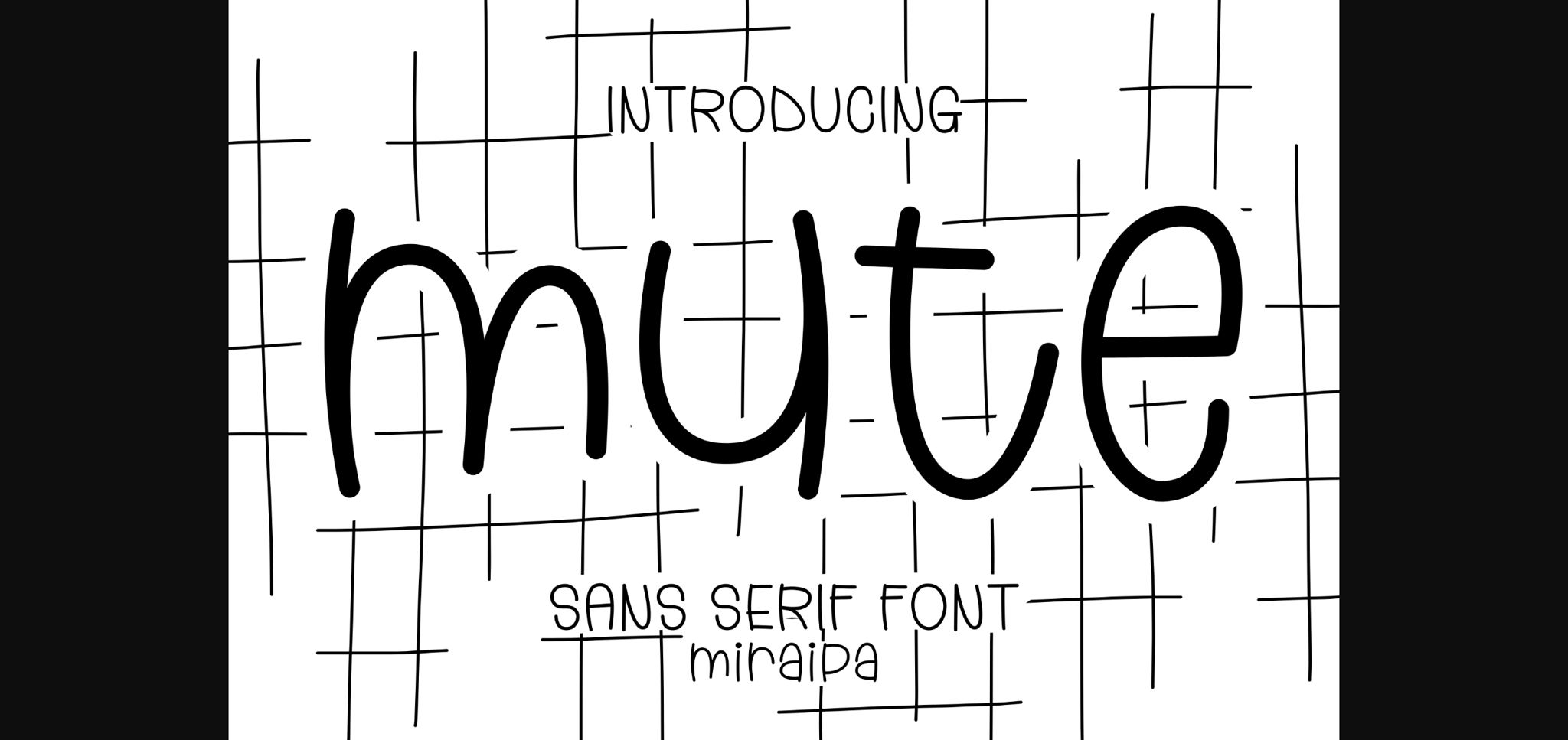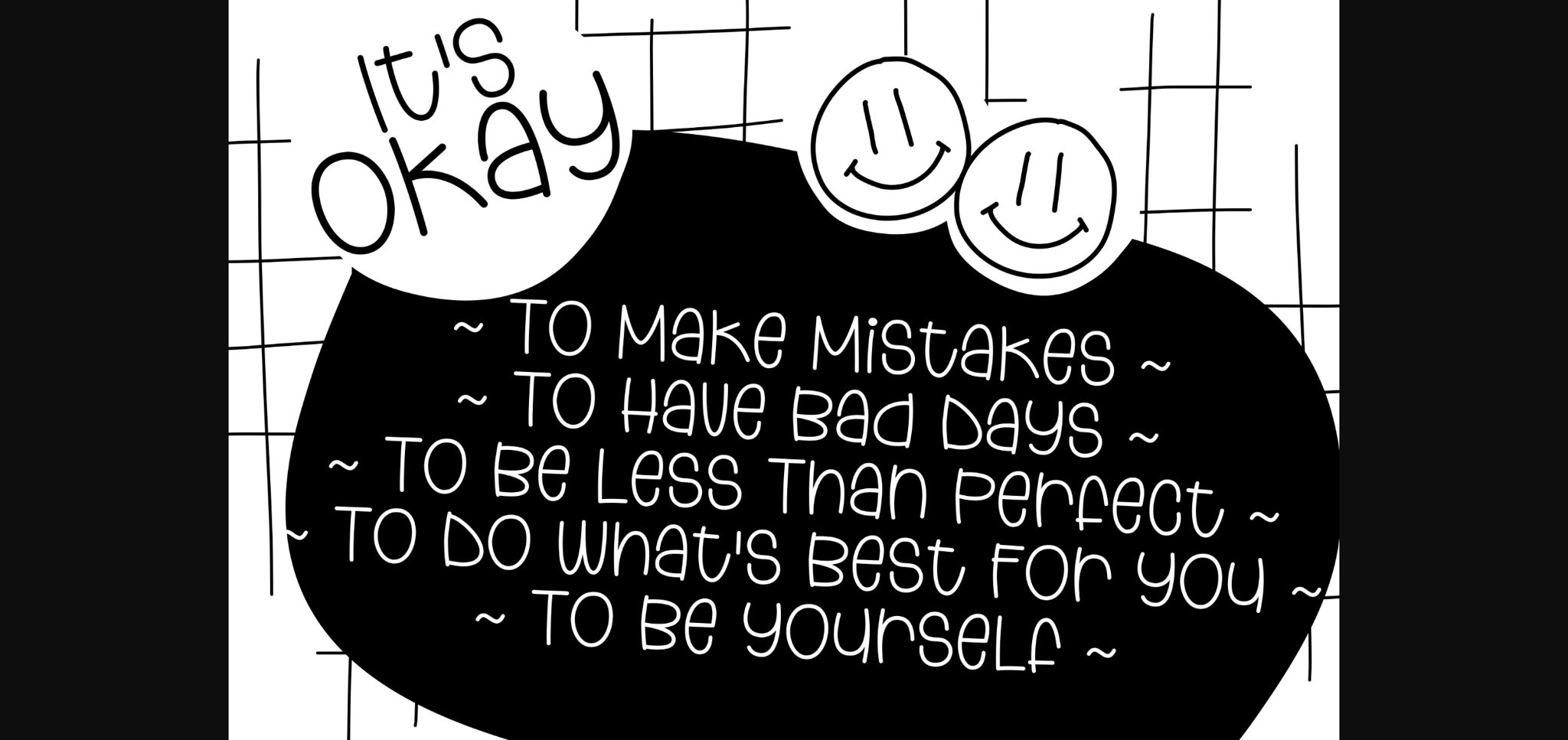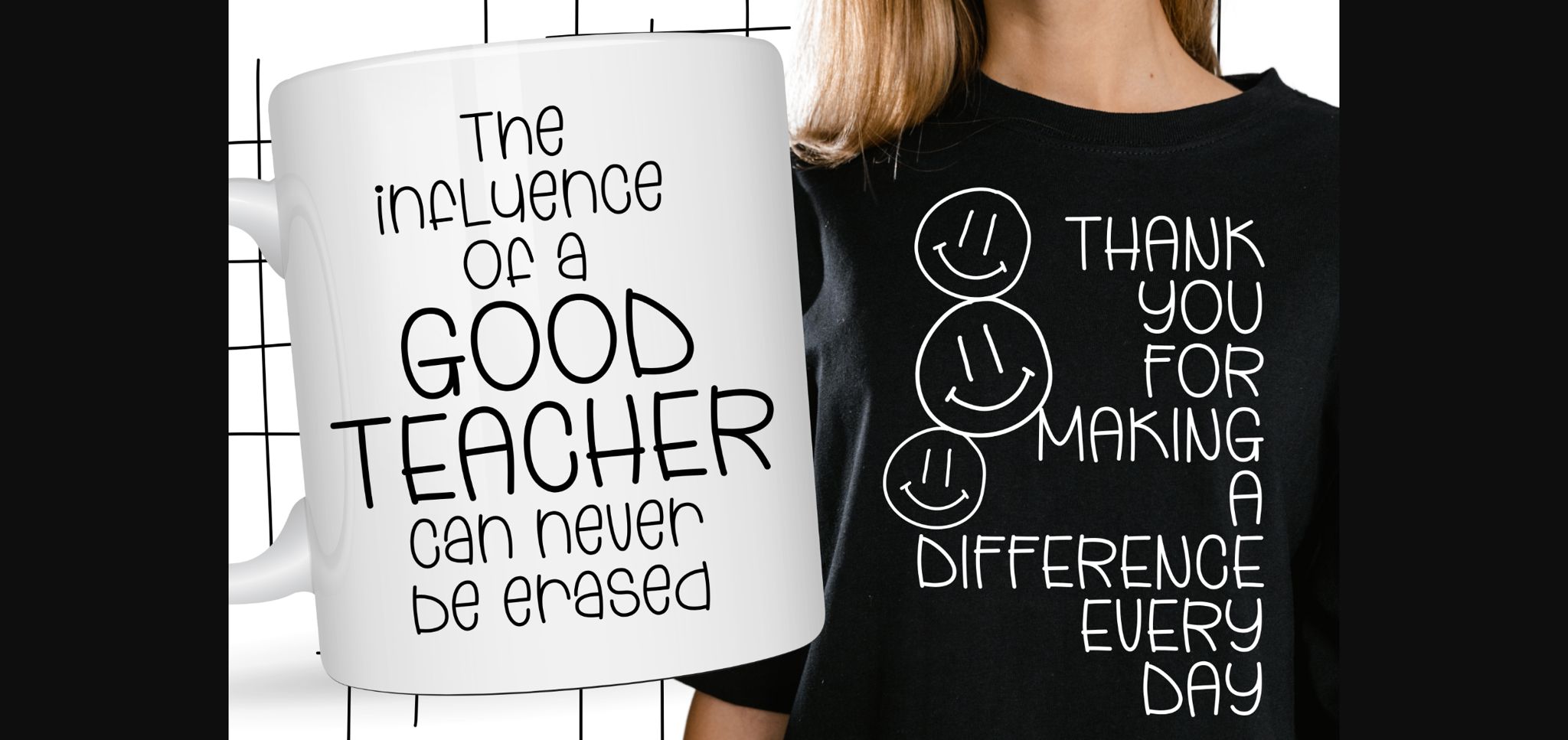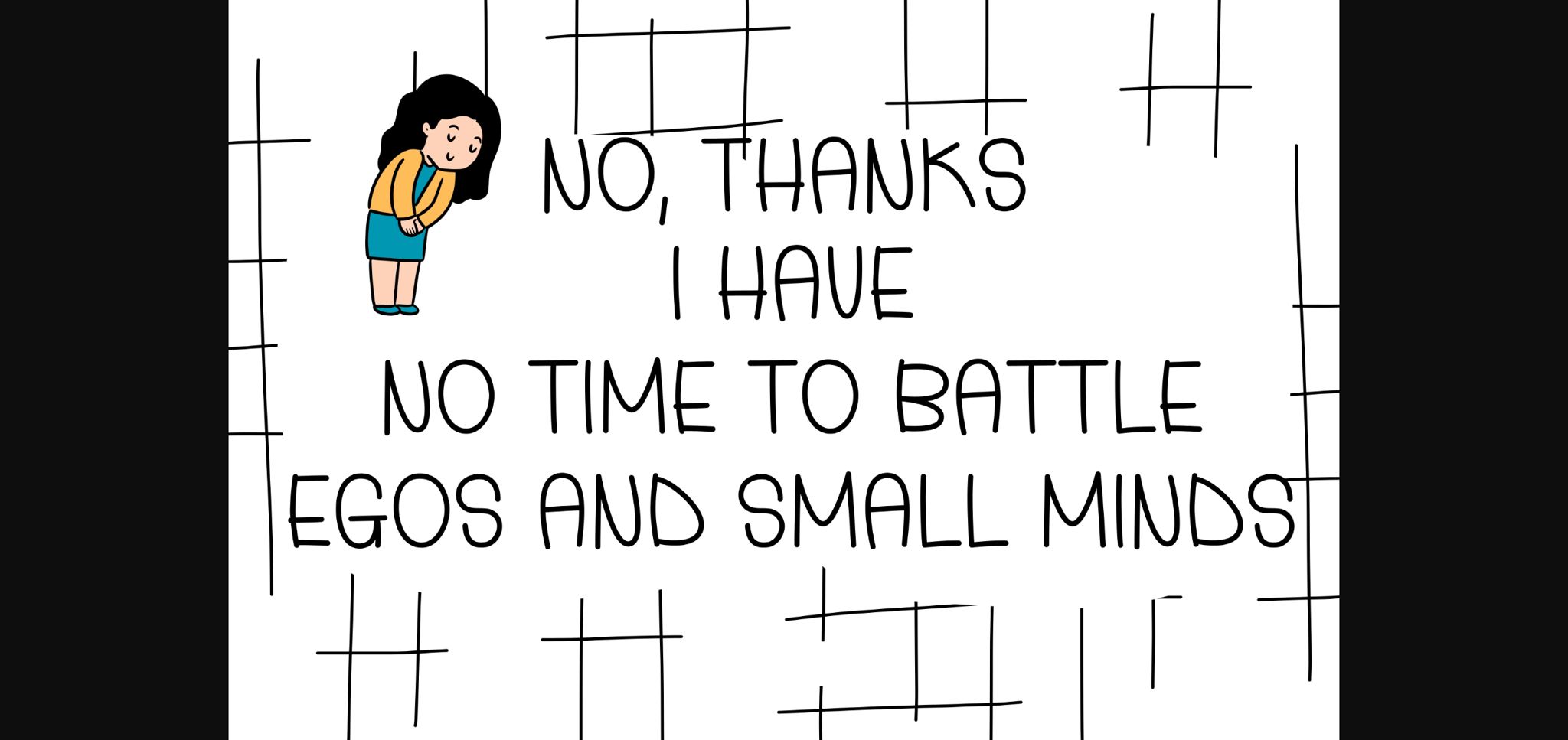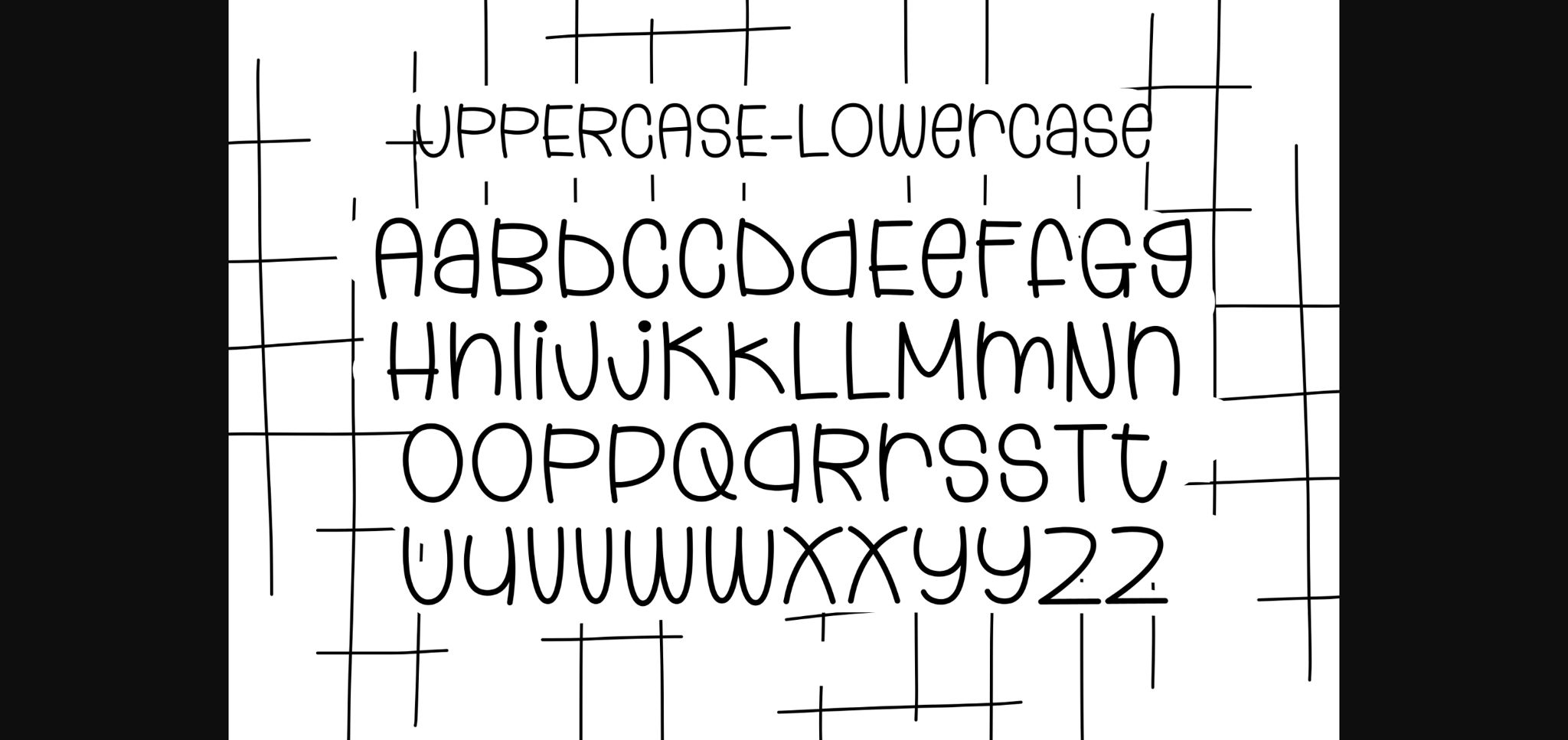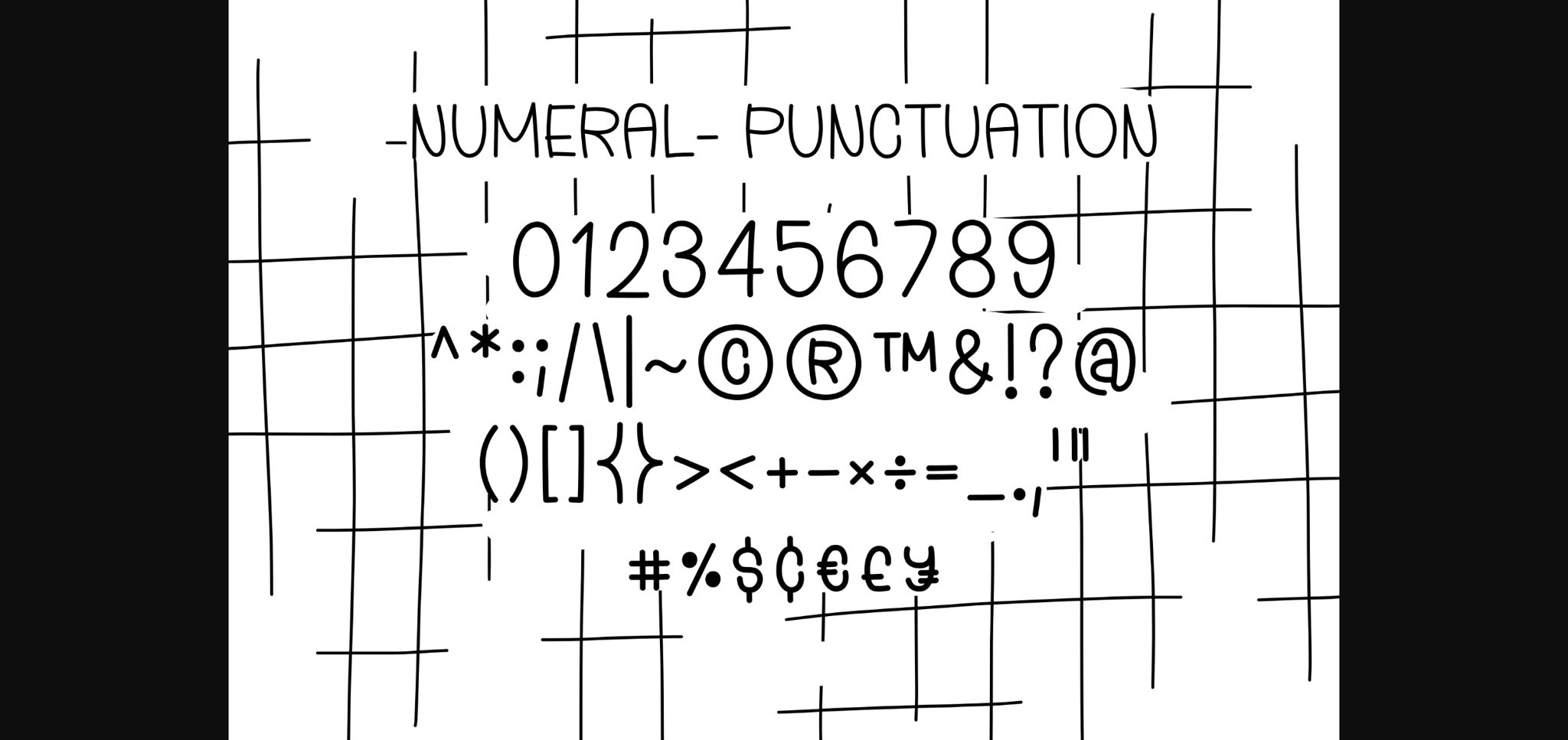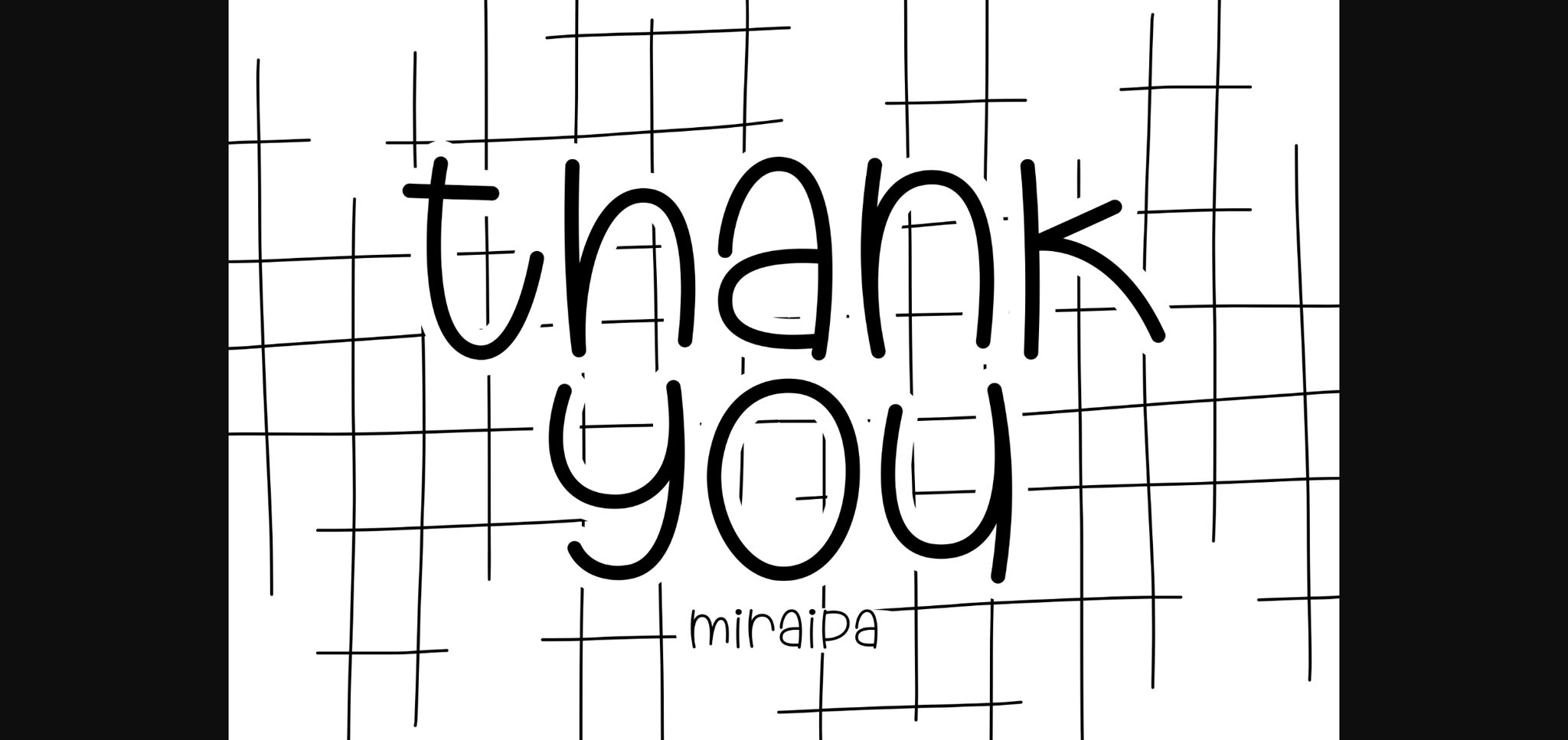
Mute Font
About Mute Font
Mute is a cute and friendly sans-serif font. It’s charming, whimsical, and a bit quirky. It would be awesome for your fun projects or diary planner.